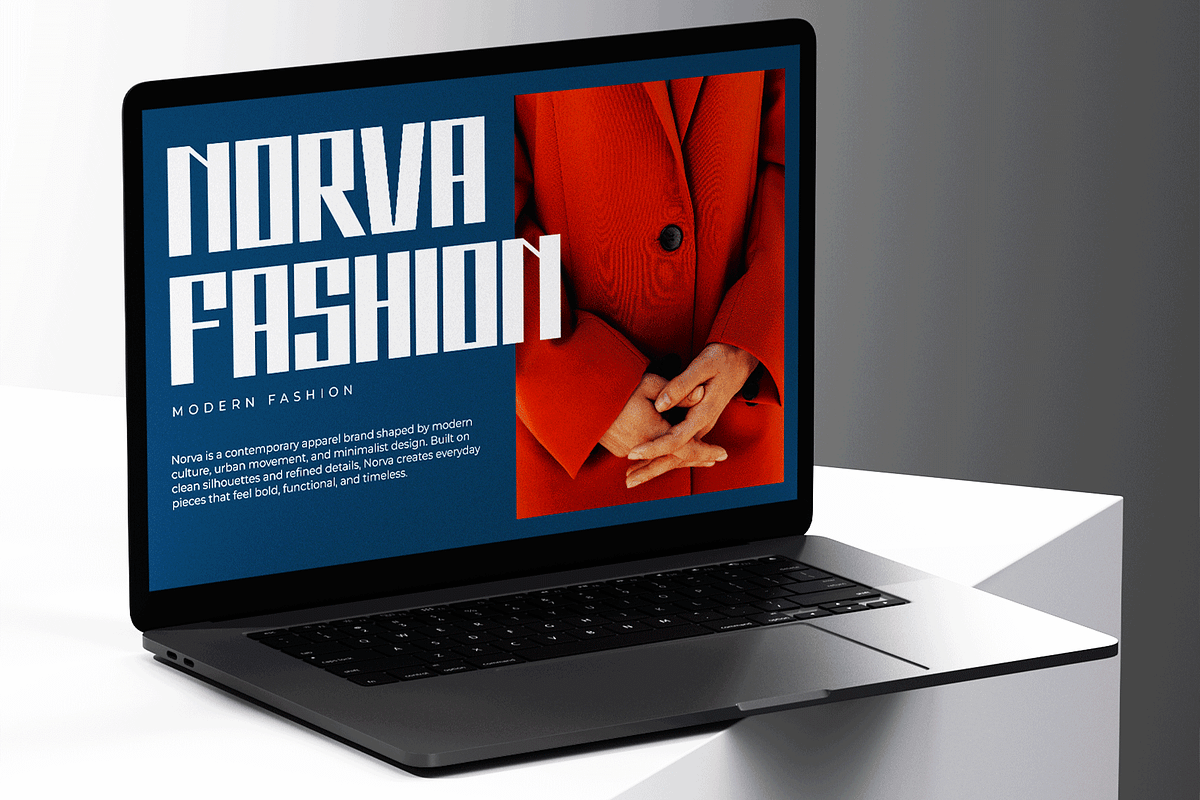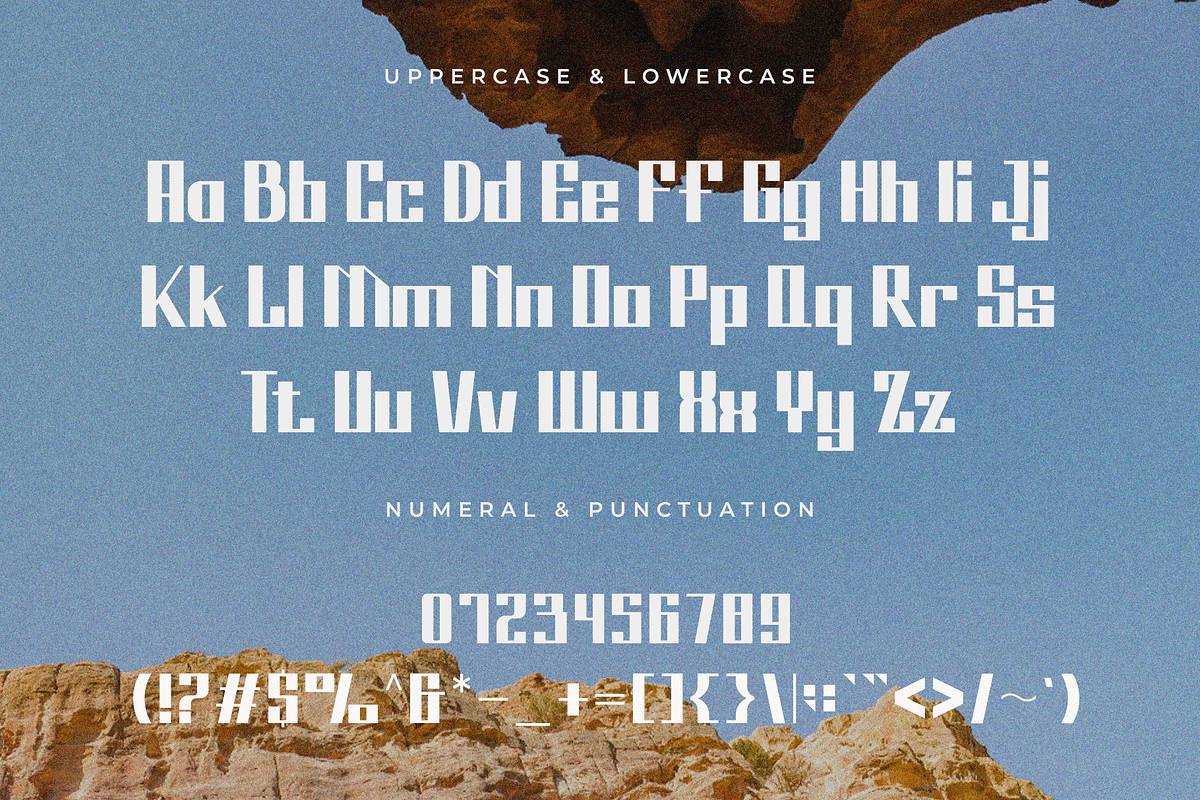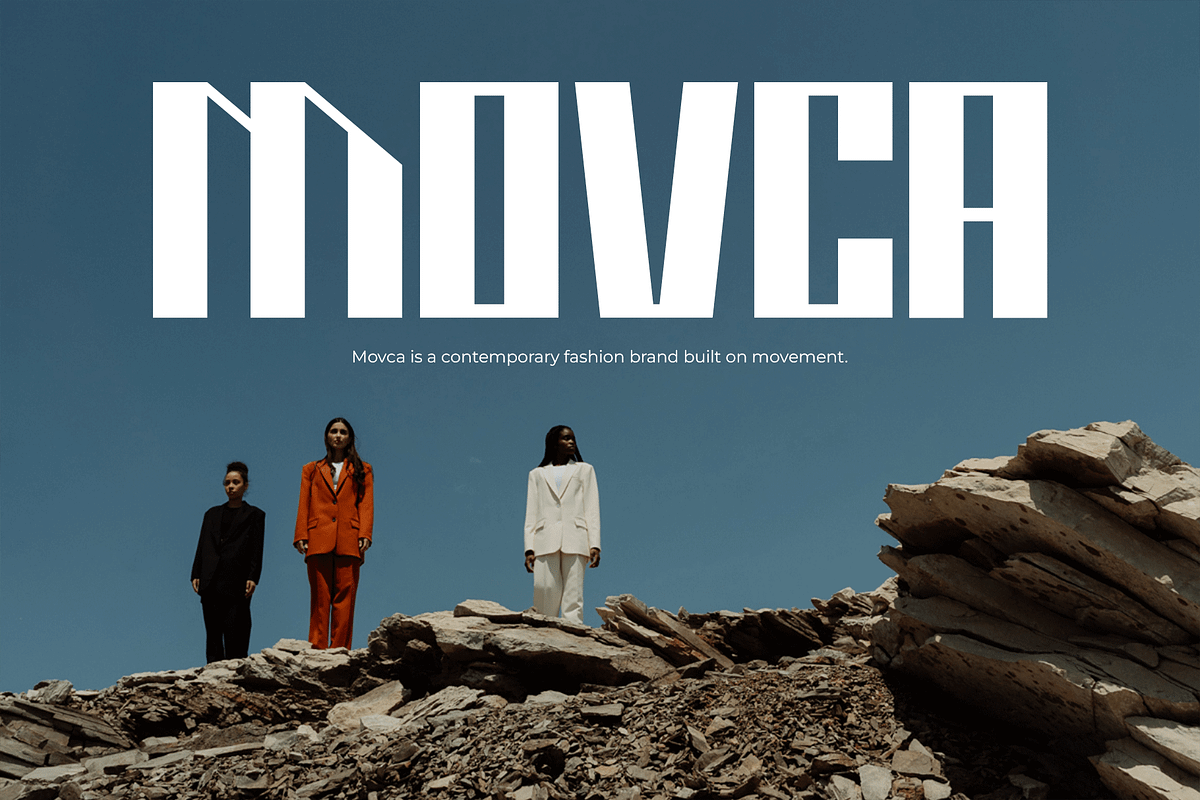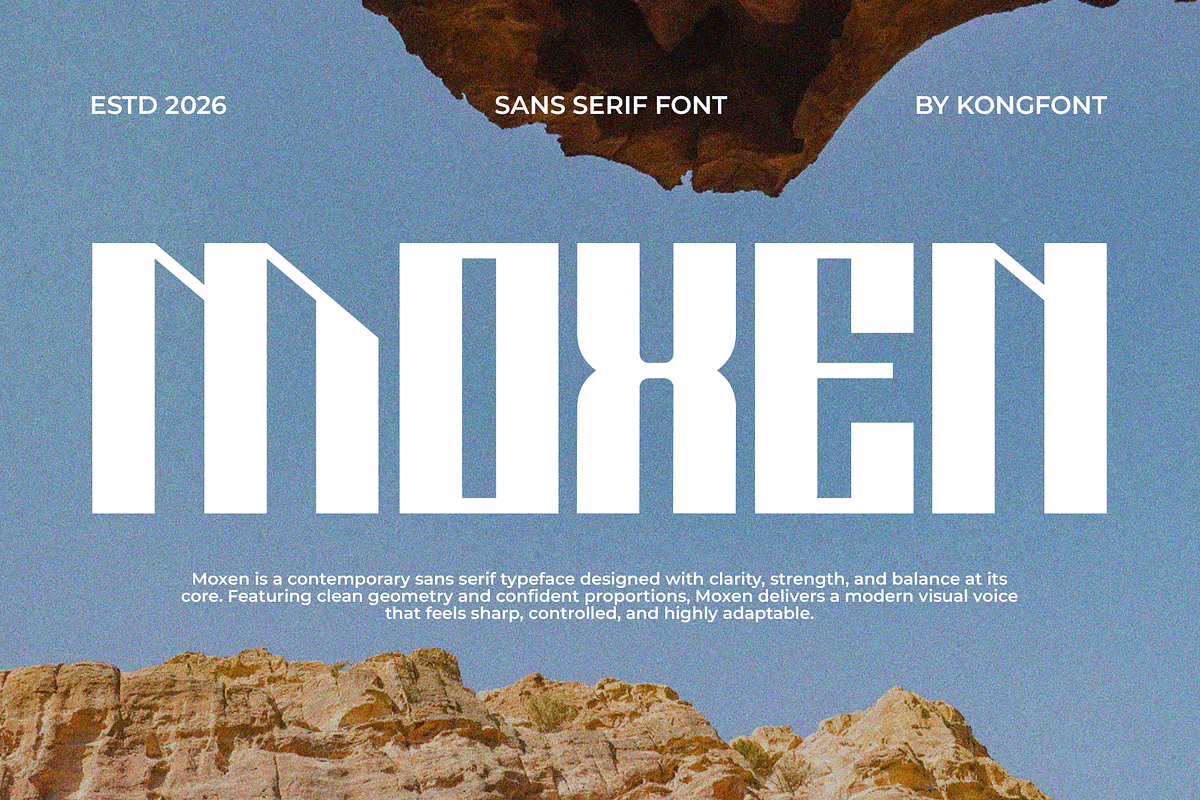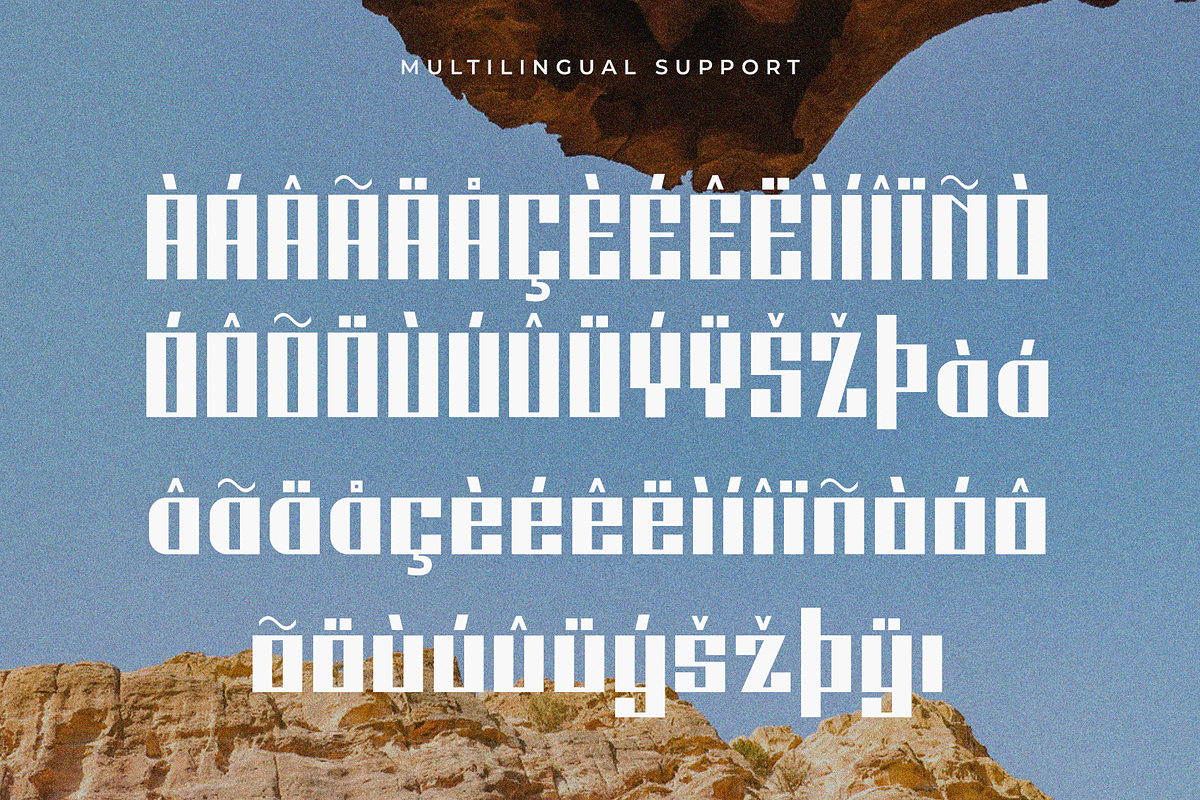
Moxen - Modern Sans Serif Font
Introducing Moxen, a modern sans serif font designed to deliver precision, clarity, and contemporary style. With its clean strokes, balanced geometry, and confident proportions, Moxen provides a sleek typographic solution that feels professional yet dynamic.
Moxen includes uppercase and lowercase letters, numerals, punctuation, and multilingual support, ensuring flexibility for global creative projects. Whether you’re building a modern brand identity or crafting clean, high impact layouts, Moxen brings clarity and confident simplicity to every design.